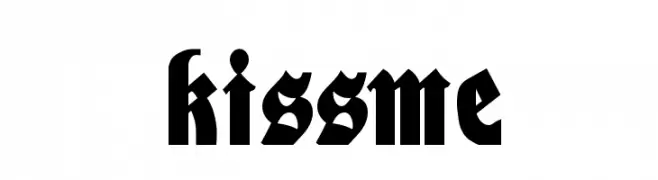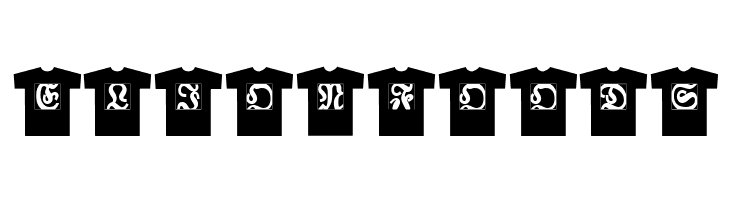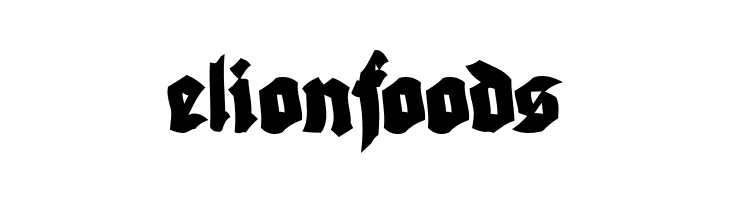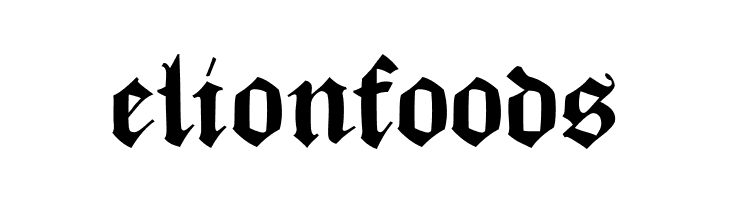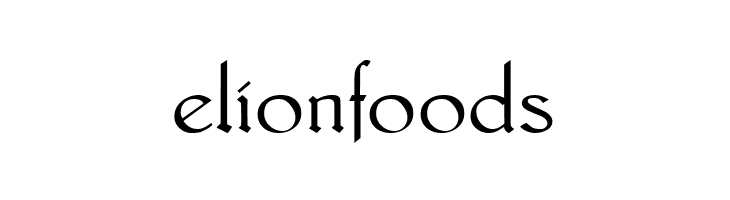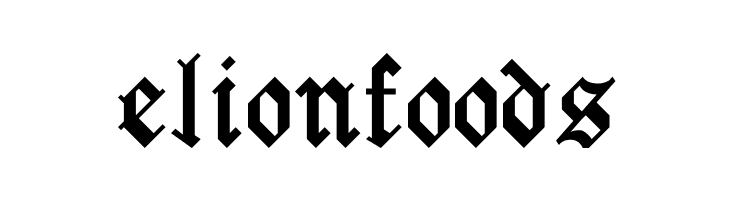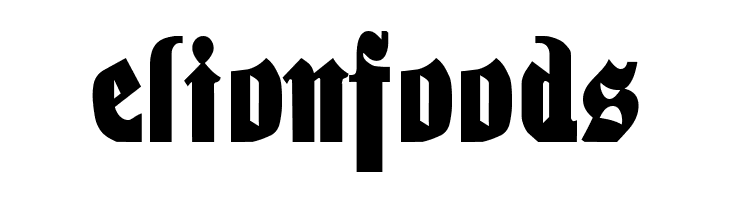
A bold, ornate Blackletter font with a classic Gothic style.
A bold, gothic Blackletter font with ornate detailing and a playful t-shirt motif.
A bold blackletter font with sharp, angular lines and a gothic style.
A decorative blackletter font with intricate, angular strokes and medieval flair.
A classic blackletter font with ornate, angular strokes and a medieval aesthetic.
A decorative blackletter font with intricate and ornate uppercase letters.
A bold, blackletter font with a medieval, ornate design.